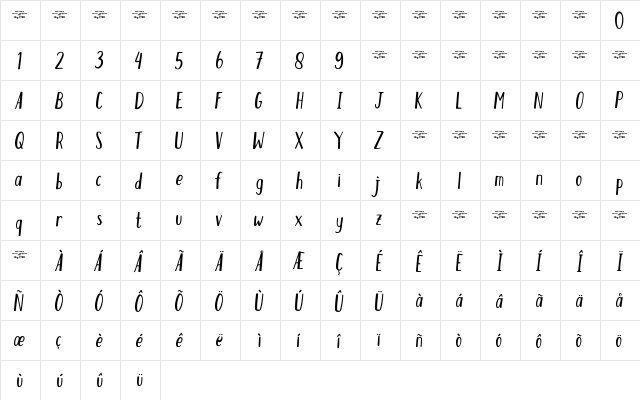
HUMBLE Regular
| Foundry | TASTYPE FOUNDRY |
| Designer | GOODWARE STUDIO |
Design Context for HUMBLE Typeface
HUMBLE is a composed and adaptable typeface that performs quietly and consistently across a wide range of design contexts.